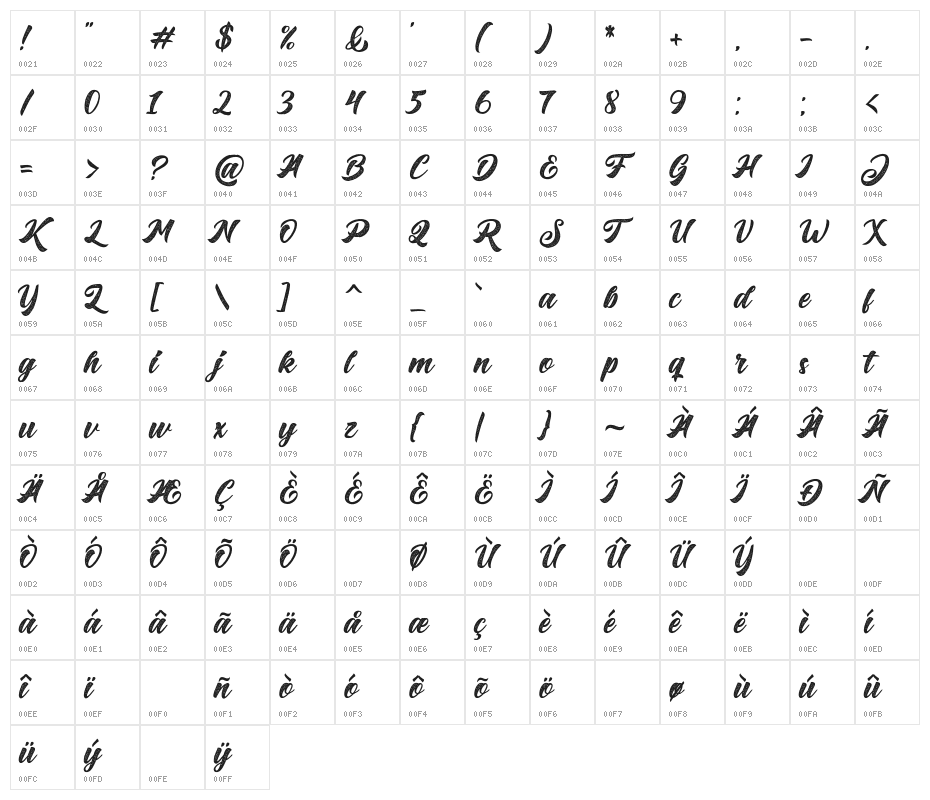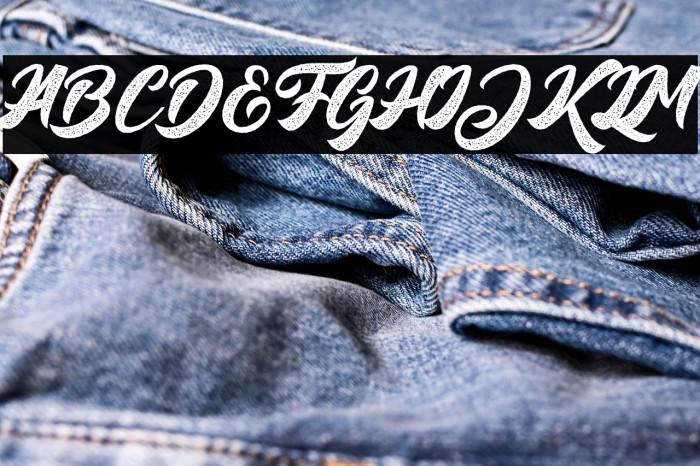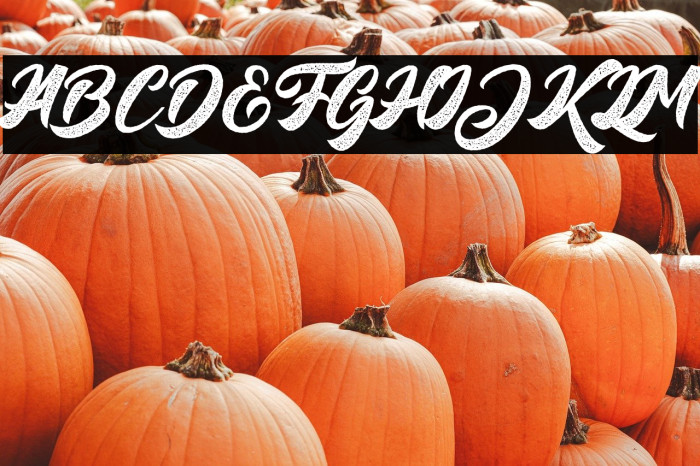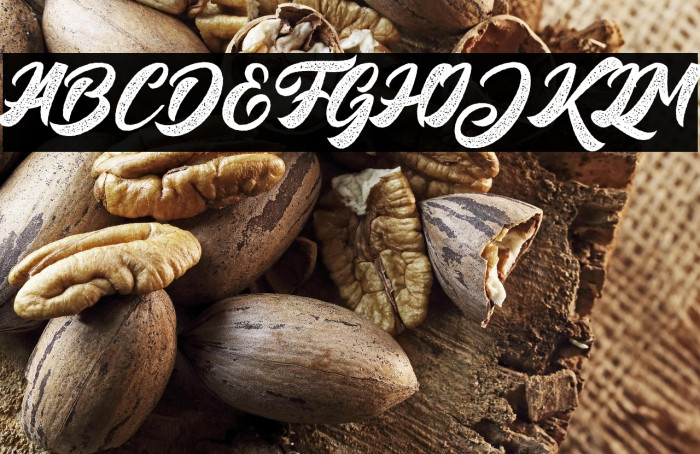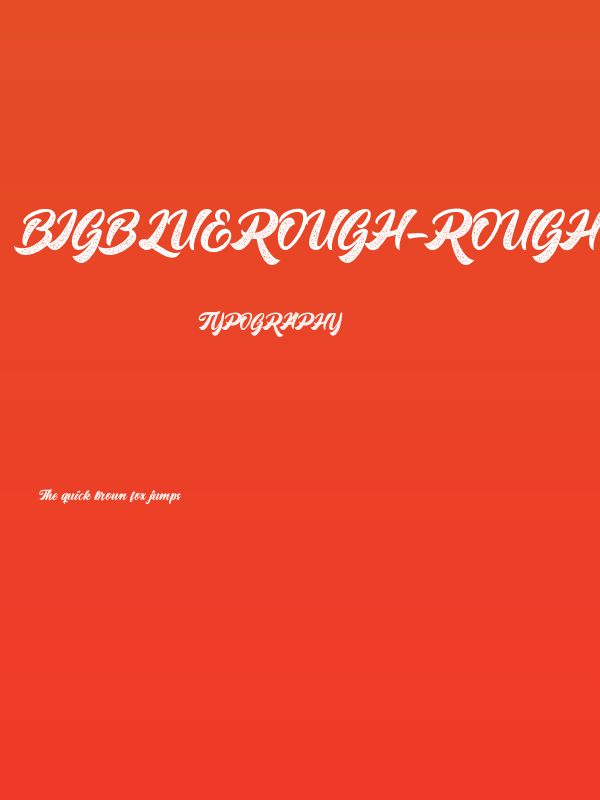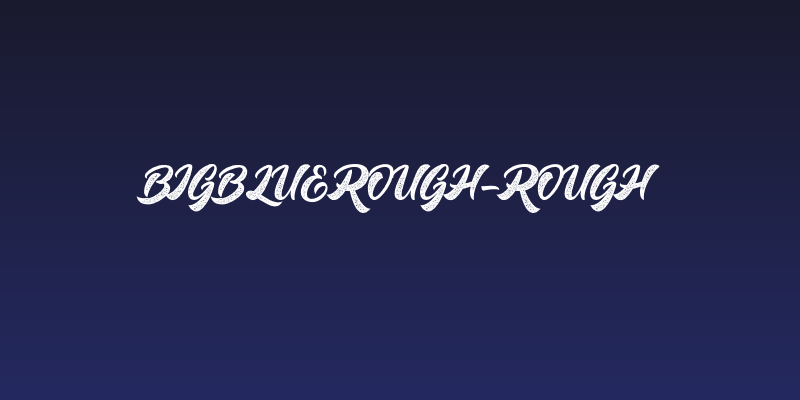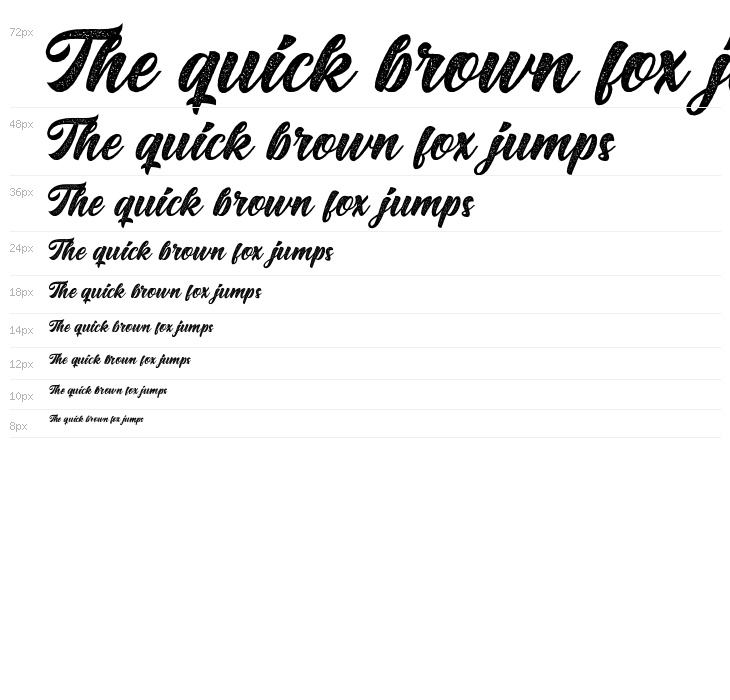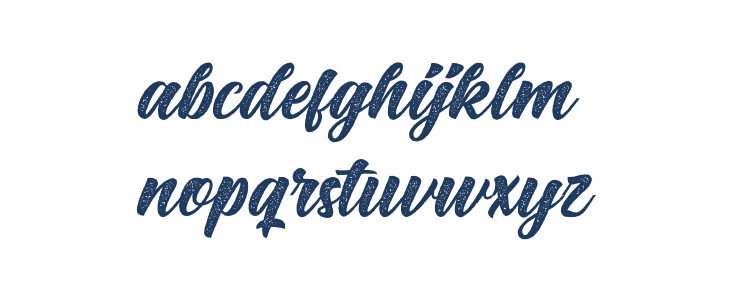
BigBlueRough-Rough Font
BigBlueRough-Rough Description
This font exudes a bold and dynamic script style, characterized by its rough, textured appearance that adds a sense of depth and personality. The letters are connected in a flowing manner, reminiscent of hand-drawn calligraphy, yet with a modern twist. The uppercase and lowercase letters maintain a consistent style, with swashes and curves that enhance its decorative nature. The numbers and special characters are equally stylized, ensuring a cohesive look across all elements. This font's rough texture gives it a unique, tactile feel, making it stand out in any design.